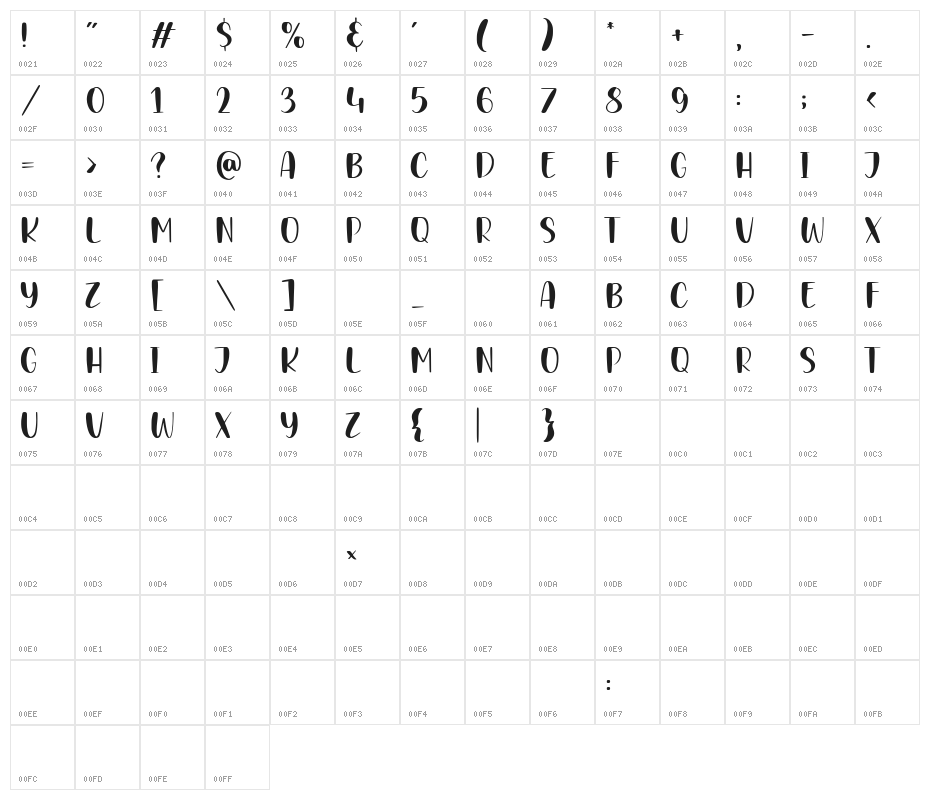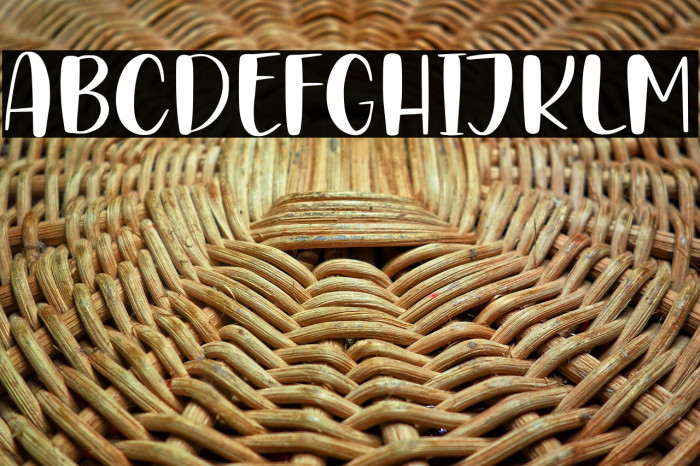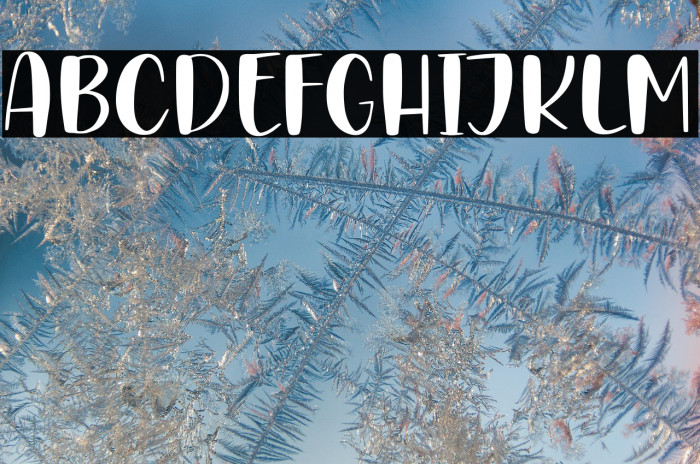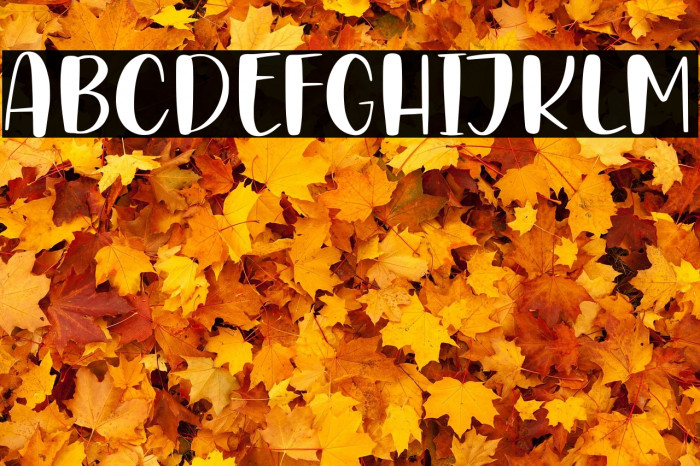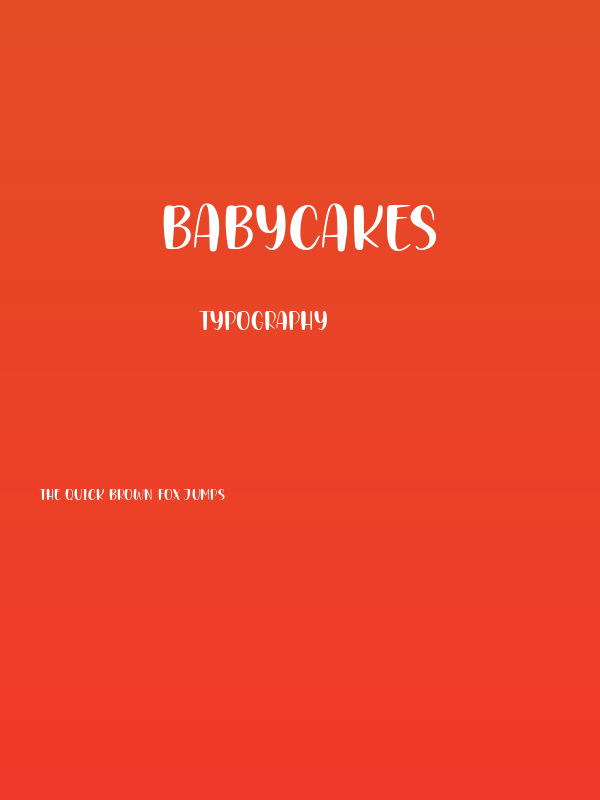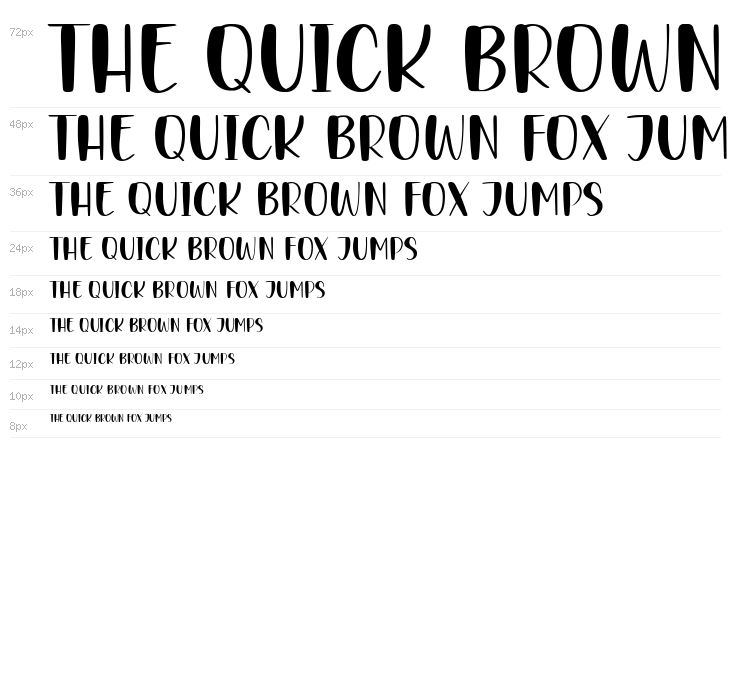
BABYCAKES Font
BABYCAKES Description
This font features a playful and bold style with a handwritten feel. The letters are characterized by their rounded edges and varying stroke widths, giving them a dynamic and lively appearance. The uppercase and lowercase letters maintain a consistent style, with a slight slant that adds to the casual and informal vibe. The numbers and special characters are designed to match the overall aesthetic, ensuring a cohesive look across all elements. This font is ideal for projects that require a fun and approachable tone.
| Use Case | Headlines, Logos, Social Media Graphics |
| Proposed Projects | Perfect for children's books, playful branding, greeting cards, and social media graphics. |